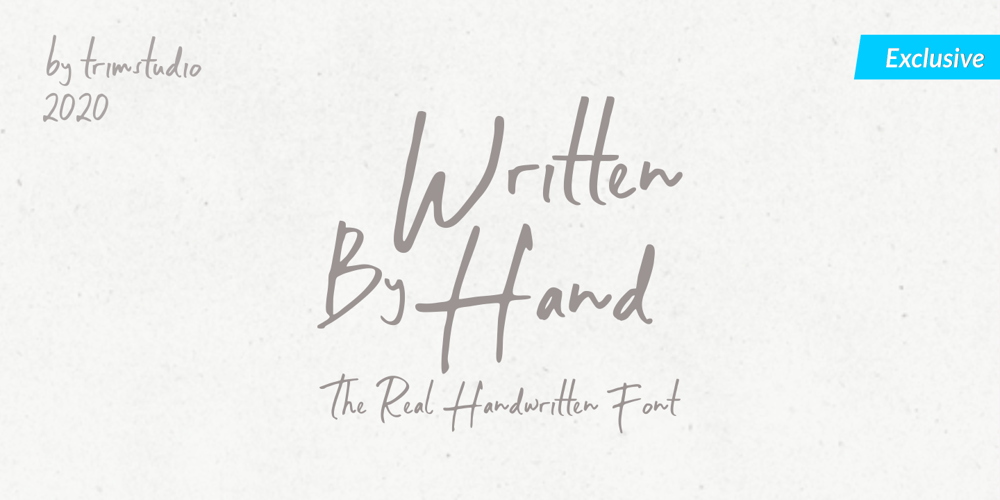
Written By Hand
Written By Hand font
Written By Hand Font Family was designed by Deri Kurnia and published by Trim Studio. Written By Hand contains 1 styles and family package options. Written By Hand, a handmade font that is taken from the real hand style of writting, its so realistic to used for many branding and personal identitystyle, especially for its messy stlye of writtingIts perfectly suited for crafter and graphic artist to complete their design such as invitation, advertisement, poster, logo, birthday, product sign, and many more!Buttier also Lightweight, even so contains All Standard glyphs and punctuations